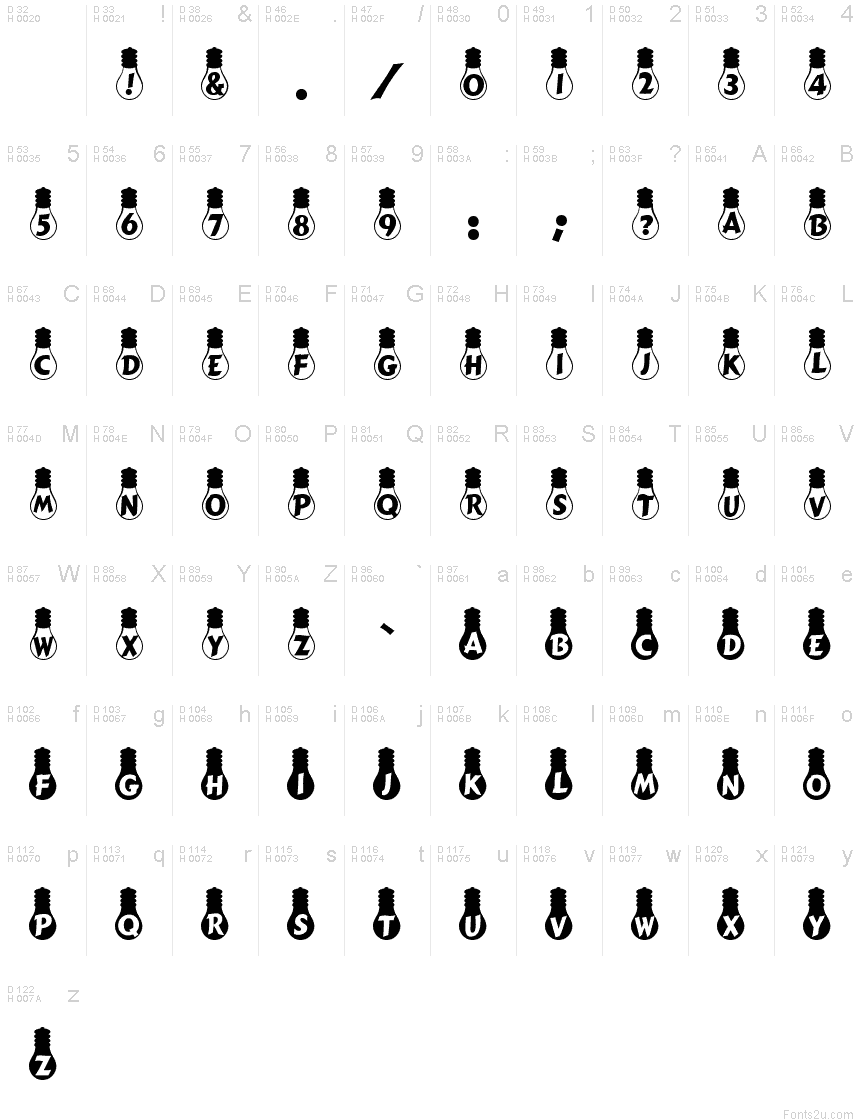
Ampoule Heavy
Ampoule Heavy font by Jürgen Modis is a free decorative display typeface that stuffs each letter into a bold, inky lightbulb. The chunky silhouettes, screw tops, and playful inner letterforms create an instant signboard vibe, like a row of lit bulbs over a stage or carnival booth. It reads loud and clear, with a strong, almost stamped texture that grabs attention in a split second.
Using Ampoule Heavy from the Ampoule family, you can headline posters, party flyers, festival branding, logos, packaging, event tickets, and social media graphics that need a fun, illuminated twist. This free font shines on short phrases and bold titles; pair it with a clean geometric sans for body text to keep layouts readable while the bulb shapes do the shouting.